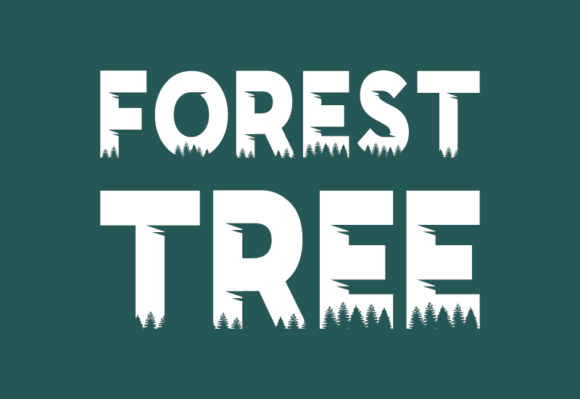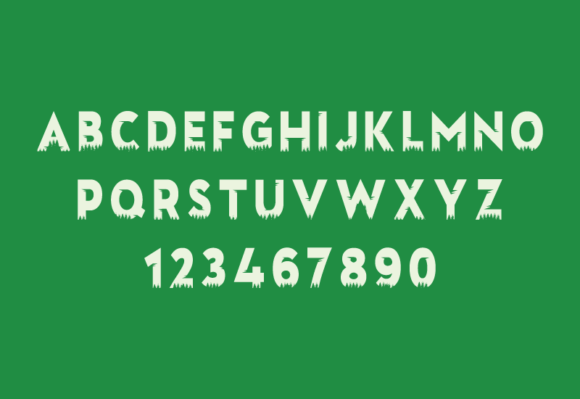
Discover the Rugged Elegance of Forest Tree Font
Have you ever found yourself lost in a sea of design options, searching for the perfect font to elevate your project? It’s a feeling many creatives know all too well. But what if you stumbled upon a typeface that effortlessly balances simplicity with a touch of distinctiveness? Welcome to Forest Tree Font, a modern and sophisticated typeface designed to bring a touch of the great outdoors to your designs.
Forest Tree Font is a versatile and stylish choice for designers, offering a clean aesthetic that’s perfect for a wide range of applications. From branding and packaging to digital interfaces and publications, this font’s subtle strength is sure to leave a lasting impression. With its sleek lines and absence of serifs, Forest Tree Font is an excellent addition to any designer’s toolkit, offering a unique and timeless look that’s sure to stand out in a crowded design landscape.
Key Features of Forest Tree Font
- Font Family: Forest Tree Font is a custom-designed font family with multiple styles, including Regular, Bold, Italic, and Bold Italic.
- Unique Characteristics: The font features a unique blend of natural and organic elements, with intricate details and textures that evoke a sense of the natural world.
Forest Tree Font Review
Forest Tree Font is an interesting font that caught my attention. While it’s not perfect, it has some unique qualities that make it worth exploring.
- Unique design: Forest Tree Font has a distinct, hand-drawn feel that sets it apart from other fonts.
- High-quality vectors: The font’s vector files are well-optimized and easy to work with.
- Good for creative projects: Forest Tree Font is perfect for projects that require a whimsical or natural feel, such as branding for outdoor gear or eco-friendly products.
- Limited character set: Forest Tree Font is missing some essential characters, such as punctuation marks and special characters.
- Not ideal for body text: Due to its unique design, Forest Tree Font is best used for headings or titles, as it can be difficult to read in large blocks of text.
Overall, Forest Tree Font is a great addition to any designer’s toolkit, but it’s essential to use it judiciously. While it excels at adding a touch of personality to creative projects, it may not be the best choice for everyday body text or projects that require a high level of professionalism.
The Forest Tree Font is ideal for:
- Outdoor-themed designs, such as park maps, hiking trails, and nature-inspired graphics.
- Woodland-themed designs, such as log cabins, forest animals, and tree-inspired patterns.
- Organic and earthy designs, such as eco-friendly logos, nature-inspired typography, and outdoor advertising.
To get the most out of the Forest Tree Font, try the following:
- Combine the font with natural textures and patterns to create a cohesive look.
- Use the font in conjunction